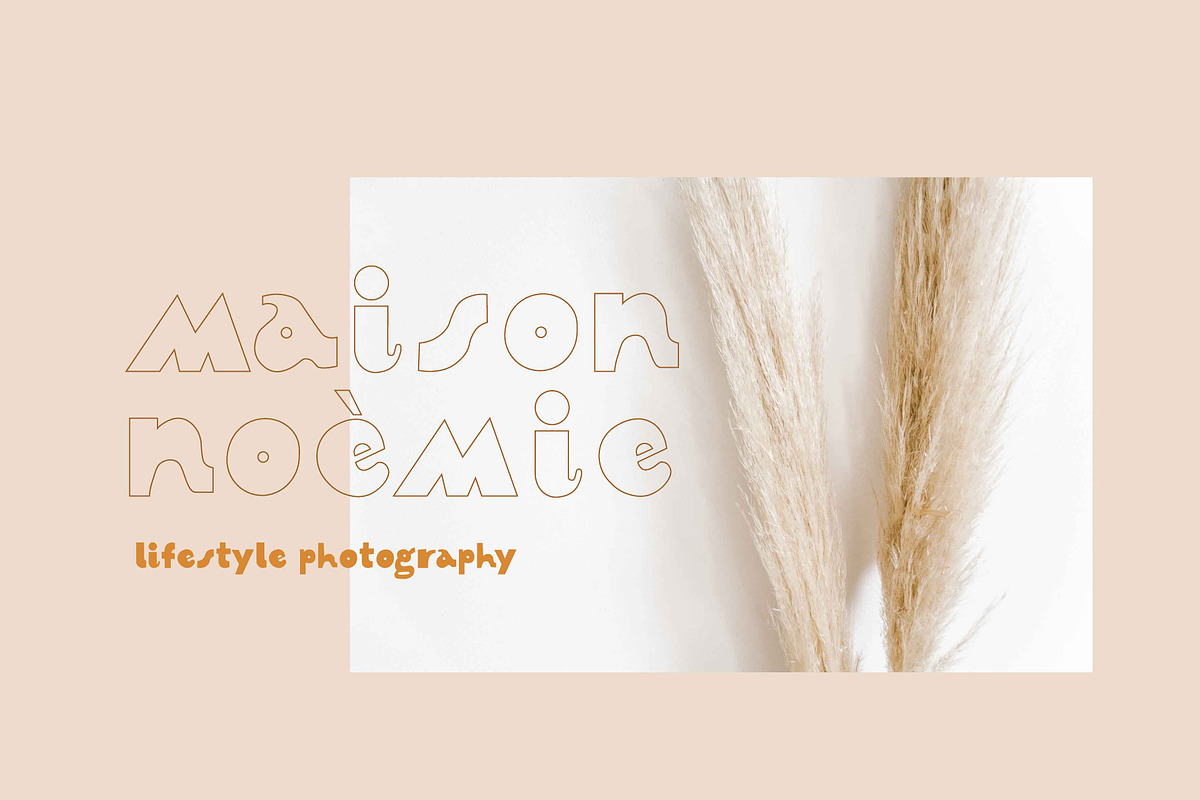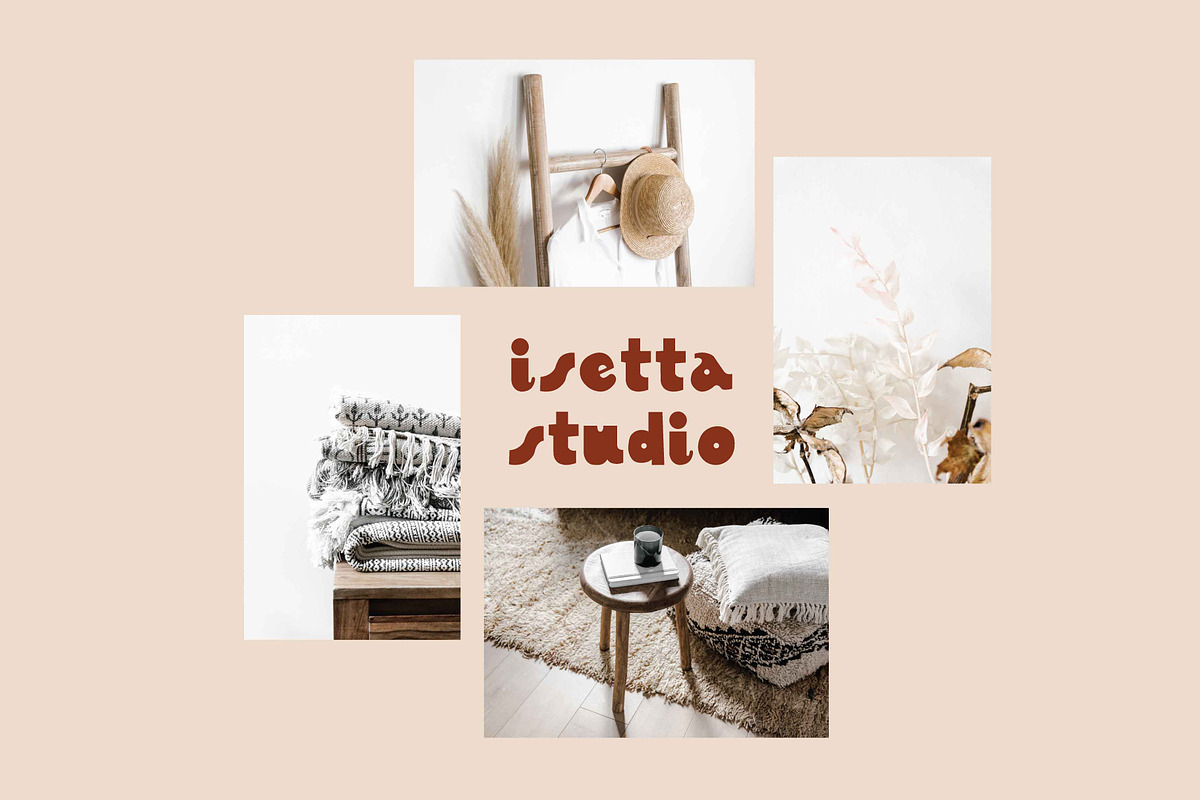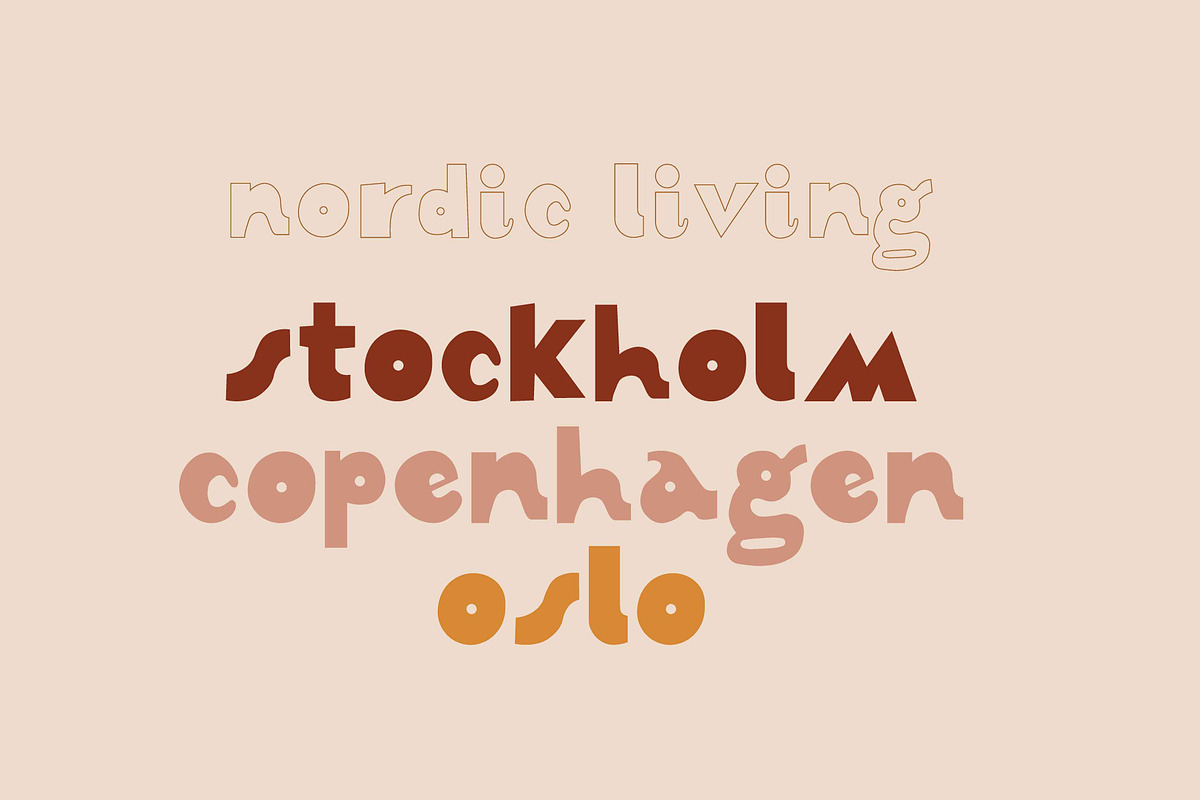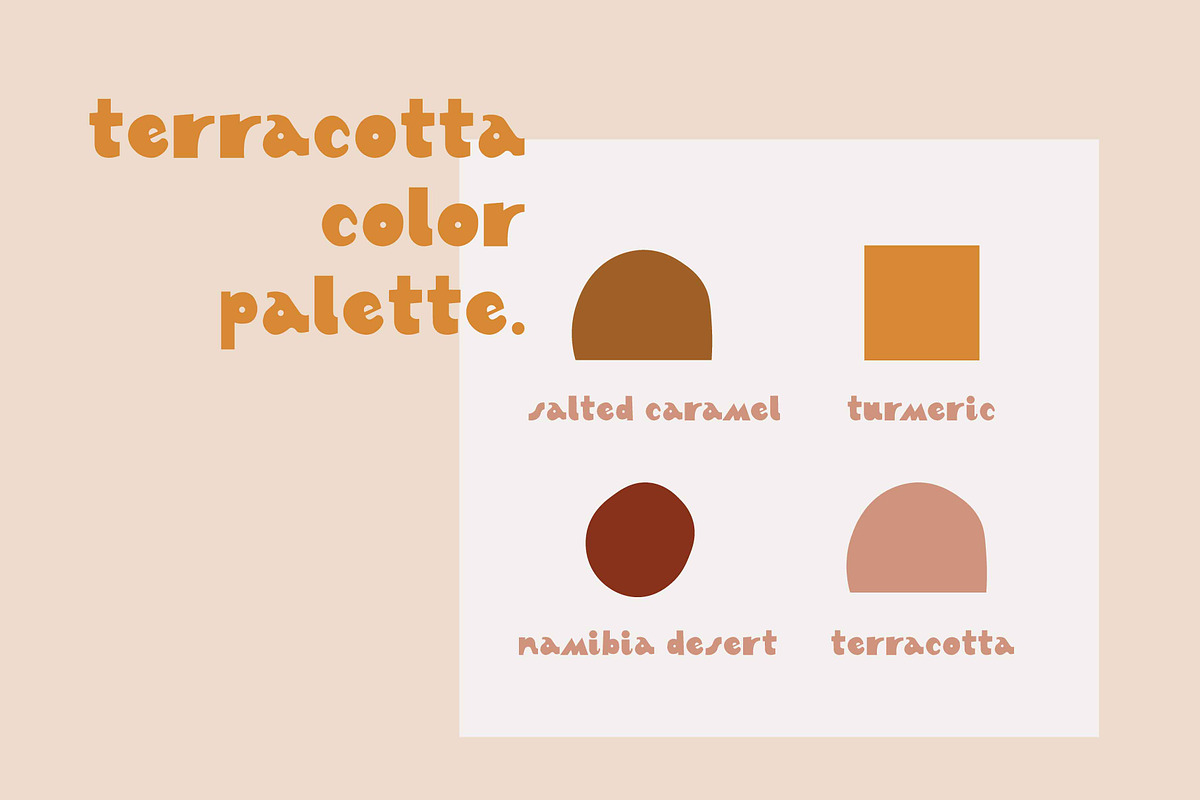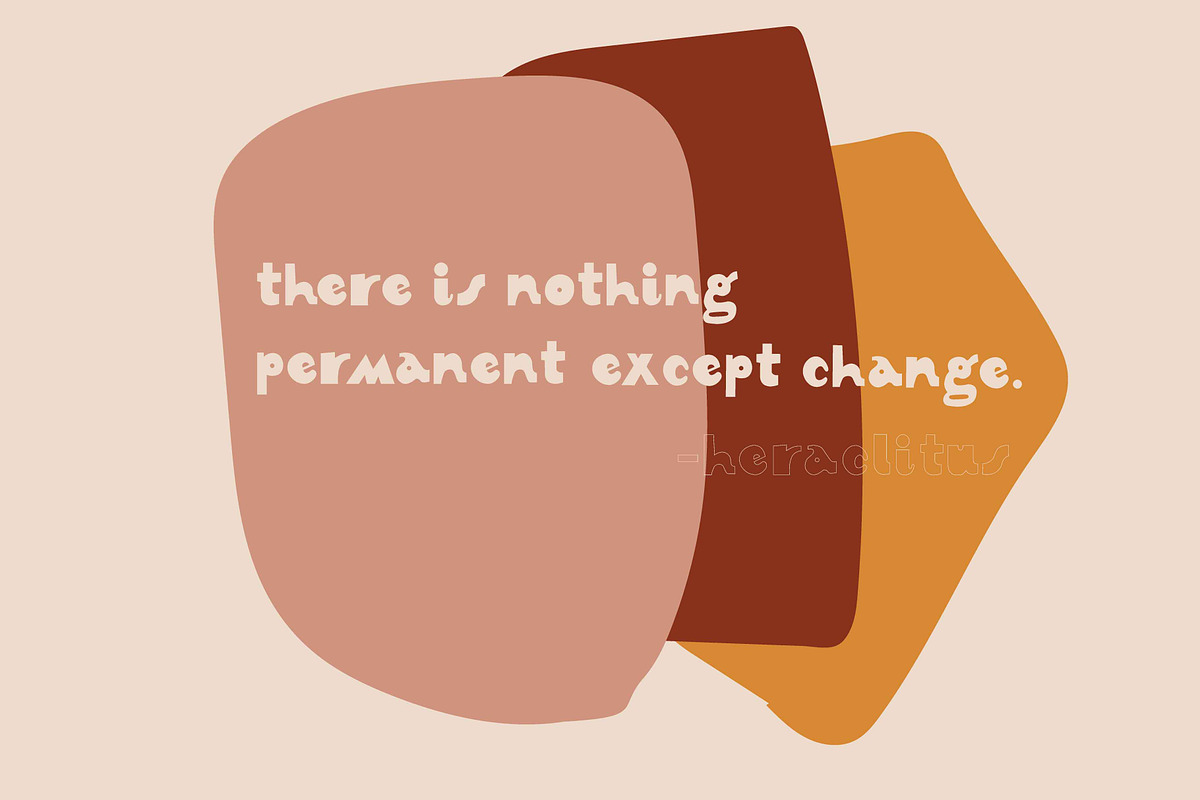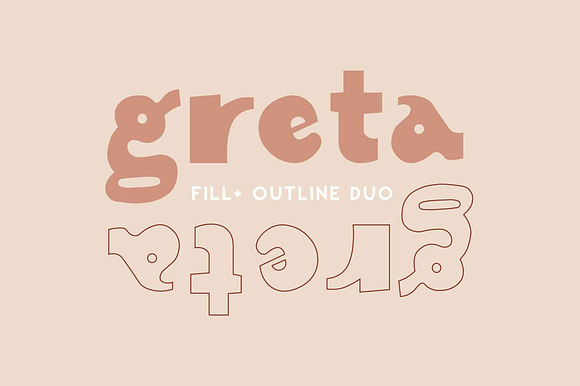
Greta | Font Duo | Fill+Outline
Greta is an all-lowercase playful font duo with a full set of characters for both the filled font and the outline font. A bold font with a touch of 70's style, Greta is perfect for branding, creating display images for social media, making stand out quotes images and so much more.